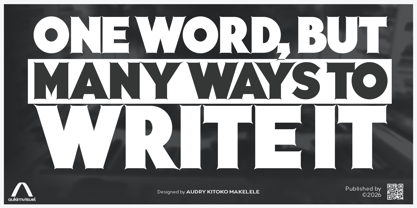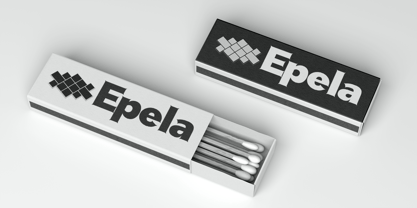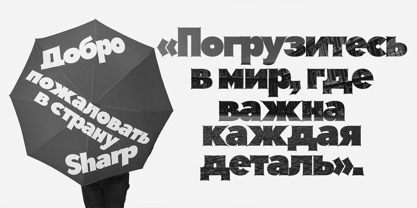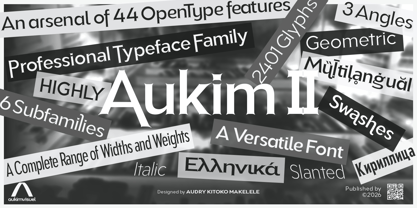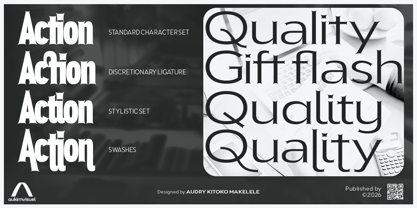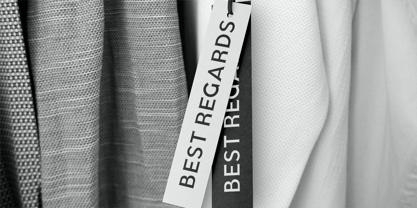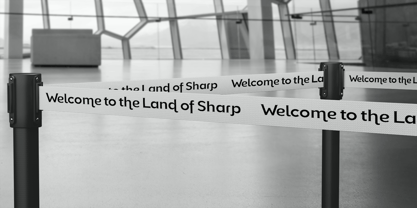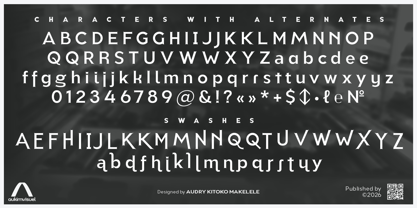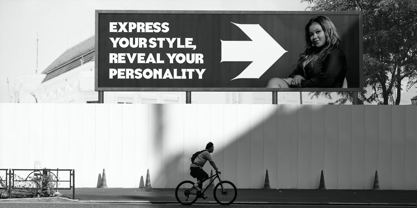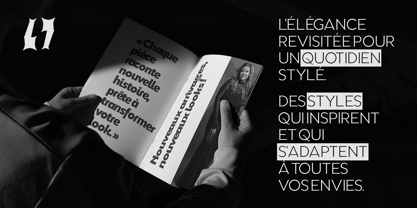
Aukim II Sharp
by AukimVisuel
The Aukim II Sharp Font Family was designed by Audry Makelele and published by AukimVisuel. Aukim II Sharp contains 234 styles and family package options. More about this family
Aukim II Sharp is a variation of Aukim II that emphasizes precision and sharpness of form. While the original version is characterized by balanced geometric lines and a minimalist aesthetic, the “Sharp” variant accentuates the angles and terminations to create a more incisive look. This approach gives the characters a sharper, more assertive look, ideal for projects where you want to convey a sense of strength and modernity.
One of the major strengths of Aukim II Sharp lies in its ability to capture attention thanks to its bold outlines. The letters appear to be meticulously sculpted, giving them a stronger visual presence than the standard version. This sharpness makes the font particularly well-suited for headlines, logos, or posters where immediate impact is essential. It thus stands out as a typeface that doesn’t merely aim to be legible, but one that establishes a clear and bold visual identity.
Stylistically, Aukim II Sharp retains the geometric structure of the Aukim family but pushes it toward a more contemporary and dynamic aesthetic. The sharp angles create a sense of speed and energy, making it a strong choice for graphic design, branding, and advertising projects. It is ideal for brands seeking to project an innovative, technological, or avant-garde image.
Finally, Aukim II Sharp stands out as an expressive and versatile version, enriching the original font’s simplicity with heightened visual intensity. It perfectly illustrates how a typeface can evolve to meet specific needs: in this case, to give text more edge and character. In this sense, it serves as a powerful tool for designers seeking to combine readability with aesthetic impact in their compositions.
Designers: Audry Makelele
Foundry: AukimVisuel